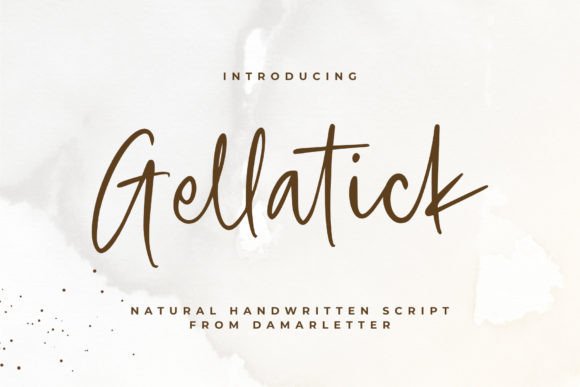
Unleash the Enchantment: Gellatick Script Font - A Journey into Whimsy and Charm
Embark on a typographic odyssey with Gellatick, a script font that dances with delight and whimsy. Its enchanting strokes, reminiscent of a playful handwritten note, bring an infectious joy to your designs, making it the perfect companion for greeting cards, invitations, and social media graphics. Watch as Gellatick transforms your creations with warmth and personality, captivating your audience with its friendly charm.
Step into a world of boundless creativity as Gellatick's smooth curves and bouncy letterforms paint an elegant picture of artistry. Create logos, branding, and product packaging that exudes uniqueness and leaves a lasting impression. Let Gellatick's graceful lines elevate your designs, adding a touch of sophistication and charm that turns heads and sparks conversations.
With Gellatick, headlines and titles become captivating works of art. Its ability to draw attention and engage readers is undeniable. Imagine your messages adorned with Gellatick's graceful presence, commanding attention in a visually stunning manner. Let your words dance across the screen, inviting readers to delve into your captivating stories and compelling content.
Gellatick, the script font that embodies joy, whimsicality, and sophistication, awaits your creative touch. Embrace its enchanting spirit and watch your designs flourish with a captivating and friendly touch. Let Gellatick be your guide into a world of typographic enchantment, where creativity knows no bounds.